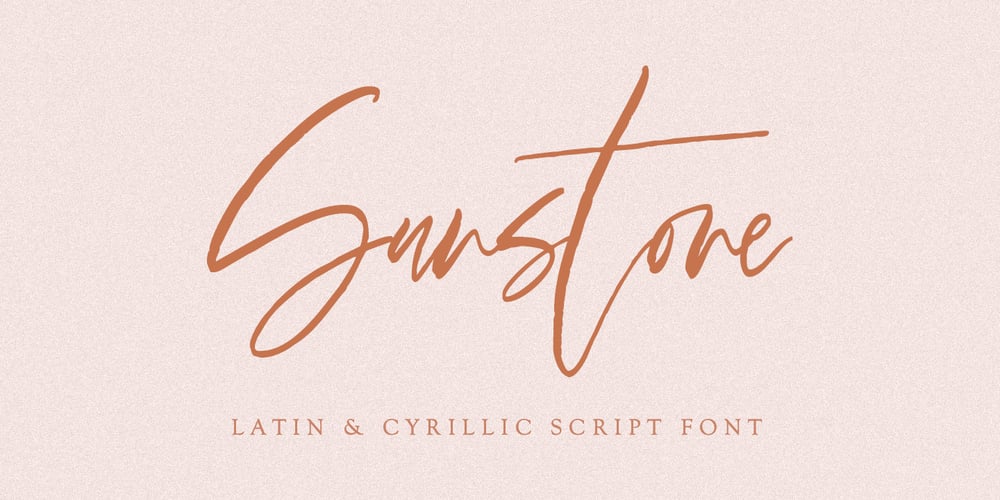
Sunstone
Sunstone font
Sunstone Font Family was designed by Dmitrii Chirkov and published by Supfonts. Sunstone contains 1 styles and family package options. Sunstone Cyrillic & Latin fontSunstone it is a chic script font with exquisite accents and full Cyrillic support. It is perfect for branding, wedding invitations and invitation cards and many moreIt includes a full set of gorgeous uppercase and lowercase letters, numbers, a large selection of punctuation marks, and ligatures.Sunstone – это милый шрифт с изысканными акцентами и полной поддержкой кириллицы. Он идеально подходит для брендинга, свадебных приглашений и пригласительных билетов и многого другогоTest it out below to see how it could look for your next project!Includes: Regular Script Latin languages support Cyrillic languages support Uppercase and lowercase Numbers and punctuation Ligatures Check out my blog: https://www.instagram.com/zloillev pinterest.com/dmitriychirkov7 Enjoy